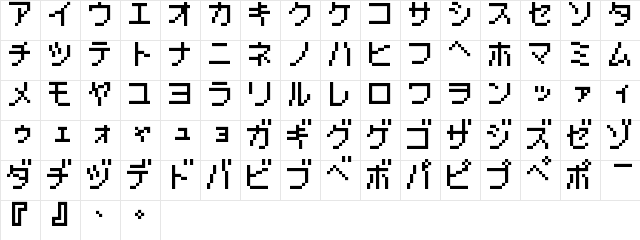
Pokemon Pinball GB Japan KT Regular
Design Context for Pokemon Pinball GB Japan KT Typeface
Pokemon Pinball GB Japan KT takes a measured approach to typography — its balanced proportions and neutral character make it a reliable workhorse for both digital and print work.